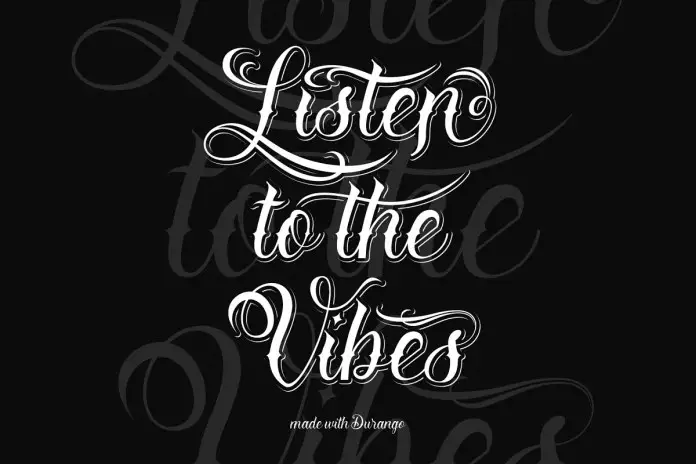
Durango Script Font
The Durango Script Font is a beautifully crafted typeface that embodies elegance and sophistication. With its flowing curves and distinct character, this font is perfect for a variety of design projects.
• Styles: Script
• Weights: Regular
• Ideal for branding and logo design
• Perfect for invitations and greeting cards
• Great for web and print projects
• Use in UI design for a touch of elegance